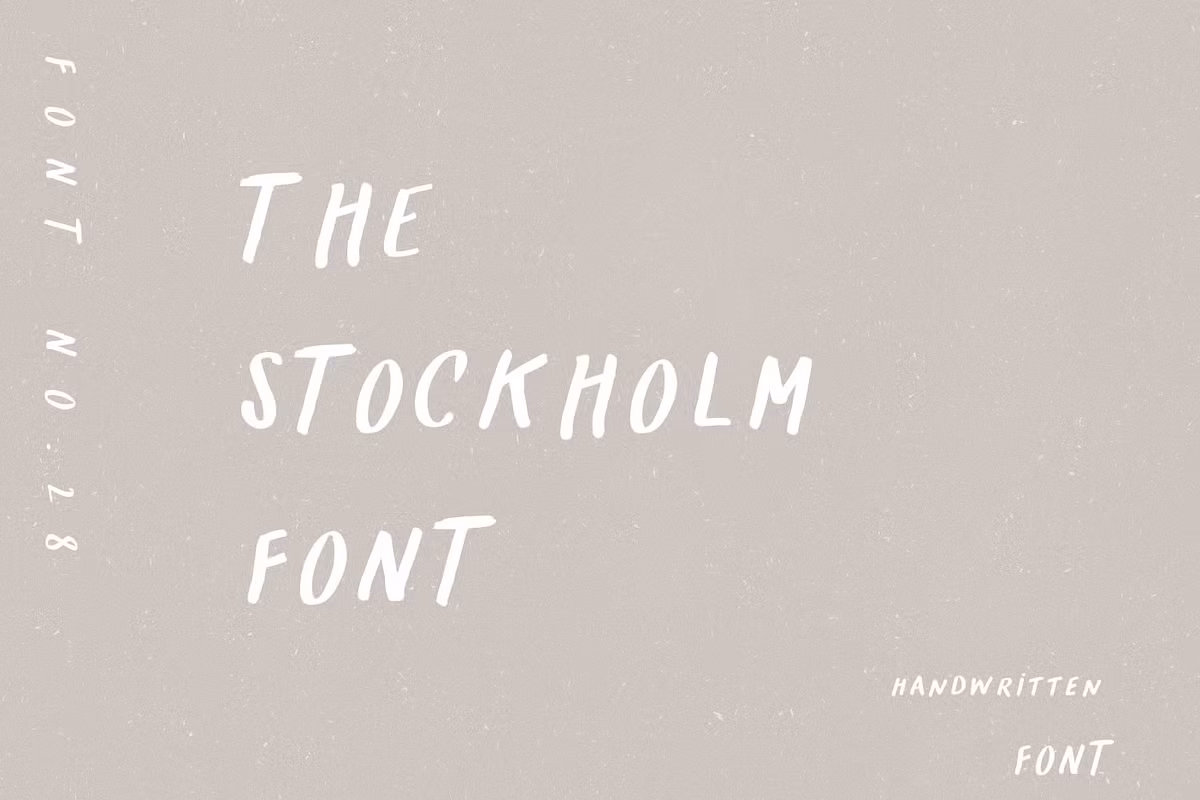
THE STOCKHOLM FONT / handwritten Free Download
THE STOCKHOLM FONT / Handwritten Free Download is a sleek and minimalist script typeface that captures the essence of Scandinavian elegance and simplicity. With its smooth, flowing lines and modern handwritten feel, this font is perfect for fashion branding, social media graphics, logo design, beauty packaging, and wedding stationery. It adds a refined, personal touch without overwhelming your design.
Whether you're crafting a chic brand identity or a soft, romantic invitation, THE STOCKHOLM FONT delivers clarity and charm with every stroke. It’s ideal for creatives who want a balance of modern style and authentic hand-drawn character.